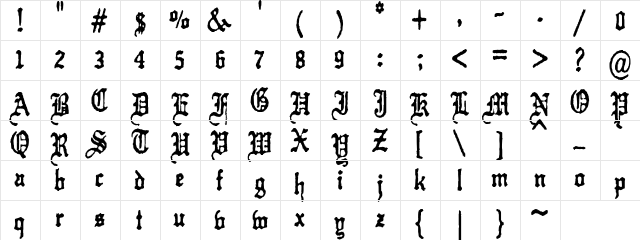
Kraut-type-a-fuck Regular
Design Context for Kraut-type-a-fuck Typeface
Kraut-type-a-fuck is a composed and adaptable typeface that performs quietly and consistently across a wide range of design contexts.